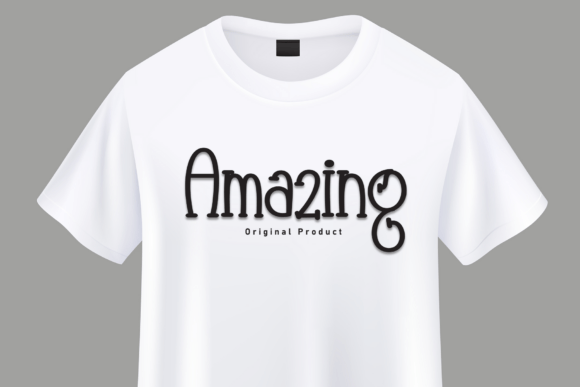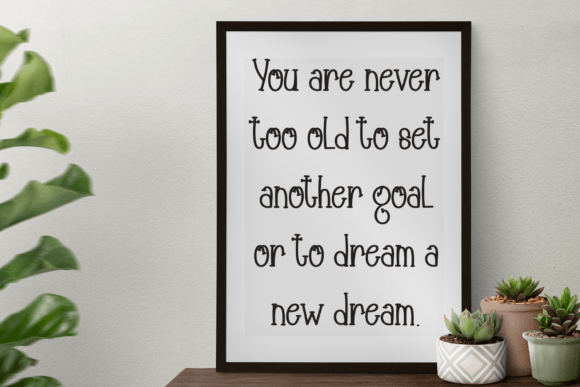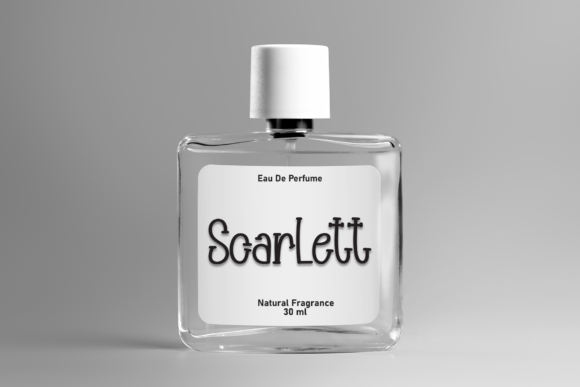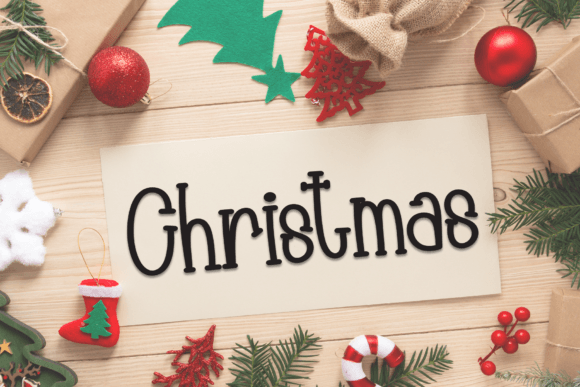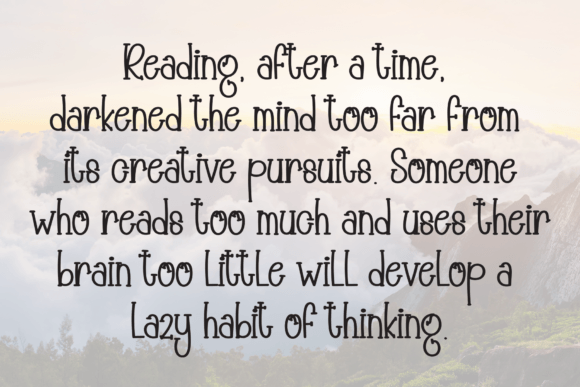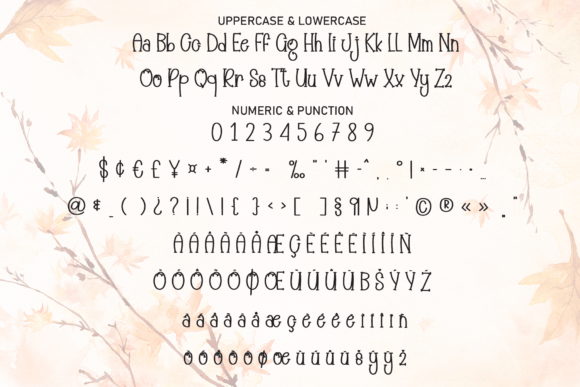
Introducing Autumn Font: A Charmingly Playful Display Typeface
Are you tired of using the same old fonts in your designs? Look no further! We’re excited to introduce Autumn Font, a handcrafted display typeface that combines elegance and whimsy in a unique and charming way. This delightful font is perfect for designers and crafters looking to add a touch of joy and personality to their work.
A Whimsical Blend of Elegance and Whimsy
Autumn Font is a masterful blend of sophistication and playfulness. Its elegant lines and curves are balanced by a sweet, friendly nature that’s sure to charm audiences. This font is perfect for designs that require a touch of whimsy, such as wedding invitations, greeting cards, and other celebratory materials. With Autumn Font, you can add a dash of fun and personality to your work, making it stand out from the crowd.
Wedding invitations and greeting cards are special occasions that deserve a font that’s just as special. Autumn Font is designed to deliver the perfect message with its upbeat and heartwarming character. Whether you’re a designer or a crafter, this font is sure to inspire your creativity and help you create beautiful, one-of-a-kind designs. Imagine being able to convey your heartfelt emotions and sentiments with a font that’s both elegant and playful – Autumn Font makes it possible.
Key Features of Autumn Font
- Handcrafted with love: Autumn Font is a unique, handcrafted typeface that’s been carefully designed to bring a touch of personality to your designs.
- Playful and elegant: This font combines the best of both worlds – playful and elegant – making it perfect for a wide range of design applications.
- Sweet and friendly nature: Autumn Font has a sweet, friendly nature that’s sure to charm audiences and make your designs stand out.
- Perfect for digital and print designs: Whether you’re designing for digital or print, Autumn Font is the perfect choice for adding a touch of whimsy and personality to your work.
Why Choose Autumn Font?
With so many fonts to choose from, why choose Autumn Font? Here are just a few reasons why designers and crafters love this delightful font:
- Unique and distinctive: Autumn Font is a one-of-a-kind typeface that’s sure to make your designs stand out from the crowd.
- Easy to read and use: Despite its playful nature, Autumn Font is easy to read and use, making it perfect for a wide range of design applications.
- Versatile and flexible: Autumn Font can be used in a variety of design contexts, from wedding invitations to greeting cards, and more.
Tips for Using Autumn Font
Here are a few tips for getting the most out of Autumn Font:
- Use it sparingly: Autumn Font is a display typeface, so use it sparingly to add emphasis and personality to your designs.
- Experiment with colors and textures: Autumn Font looks great in a variety of colors and textures, so don’t be afraid to experiment and find the perfect combination for your design.
- Pair it with other fonts: Autumn Font pairs well with a variety of other fonts, so feel free to get creative and find the perfect combination for your design.
Autumn Font is a charmingly playful display typeface that’s perfect for designers and crafters looking to add a touch of joy and personality to their work. With its sweet, friendly nature and whimsical blend of elegance and whimsy, this font is sure to charm audiences and make your designs stand out. Whether you’re designing wedding invitations, greeting cards, or any other type of design, Autumn Font is the perfect choice.